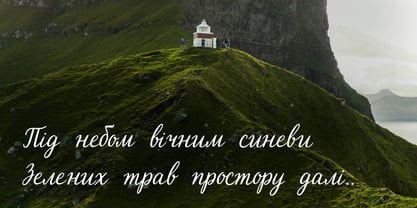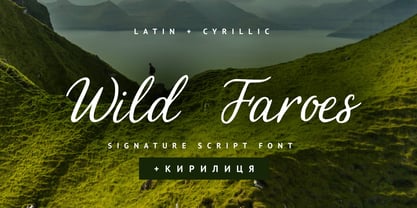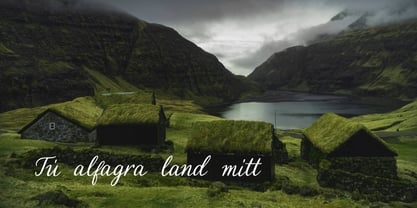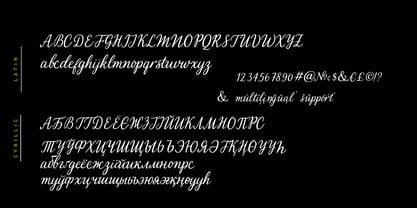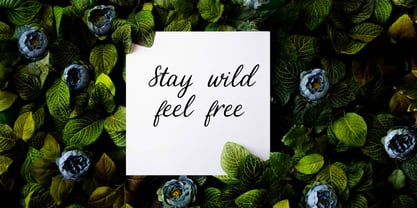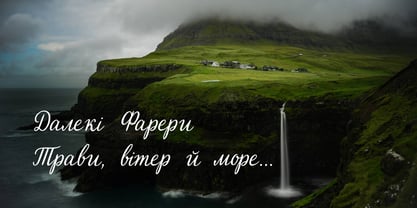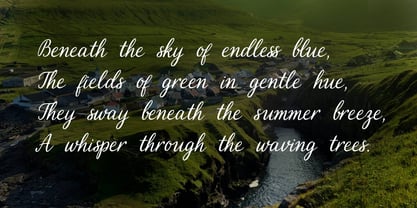
Wild Faroes Cyrillic
Die Schriftfamilie Wild Faroes Cyrillic wurde von Iryna Dviliuk entworfen und von Ira Dvilyuk veröffentlicht. Wild Faroes Cyrillic enthält 1 Stile. Mehr über diese Familie
Wild Faroes Cyrillic Font is a delicate, thin-stroke script font designed to bring a sense of personal touch, sophistication, and airy lightness to your projects. Capturing the organic flow of a fine-liner pen, this font balances professional precision with the warmth of human handwriting.
Key Features: Extensive Language Support: Fully equipped with a comprehensive Cyrillic character set, making it perfect for Eastern European and Central Asian markets.
Refined Aesthetics: The ultra-thin weight provides a clean, modern look that remains legible even in delicate layouts.
Versatile Application: Ideal for wedding invitations, lifestyle branding, poetic layouts, social media quotes, and high-end packaging.
OpenType Features: Includes natural-looking ligatures and alternates to mimic real handwriting.
Whether you are designing a boutique logo or a heartfelt greeting card, Wild Faroes Cyrillic Font adds a layer of quiet luxury and authenticity that standard scripts can't match.
Multilingual Support for 33 languages: Latin glyphs for Afrikaans, Albanian, Basque, Bosnian, Catalan, Danish, Dutch, English, Estonian, Faroese, Filipino, Finnish, French, Galician, Indonesian, Irish, Italian, Malay, Norwegian Bokmål, Portuguese, Slovenian, Spanish, Swahili, Swedish, Turkish, Welsh, Zulu.
And Cyrillic glyphs support Russian, Belorussian, Bulgarian, Ukrainian, and Kazakh languages.